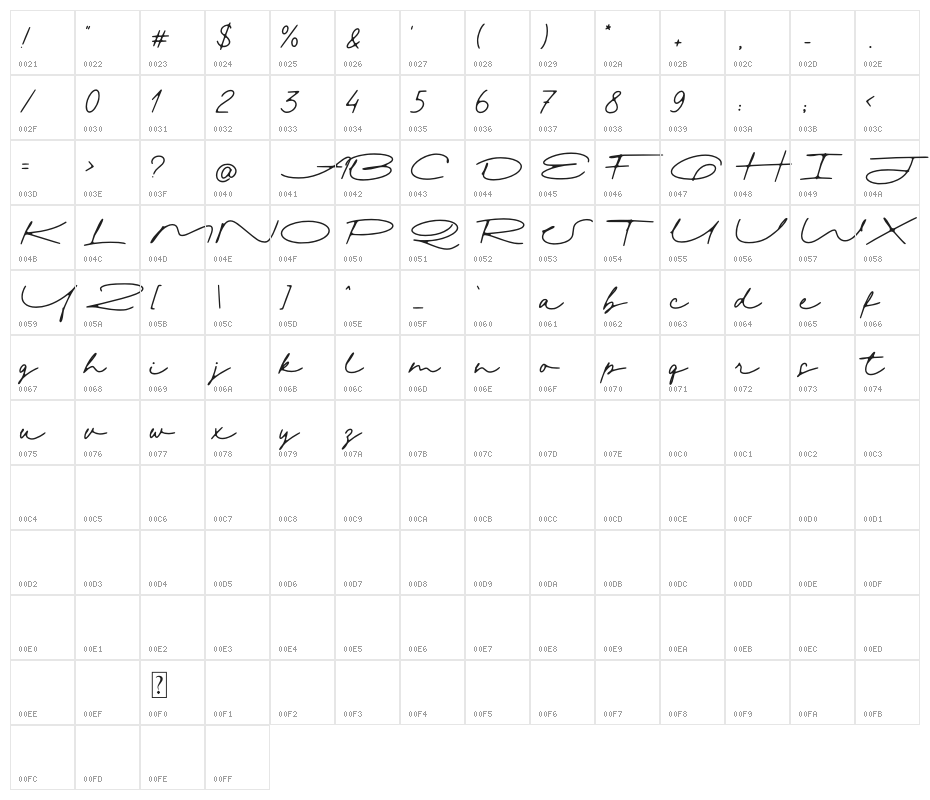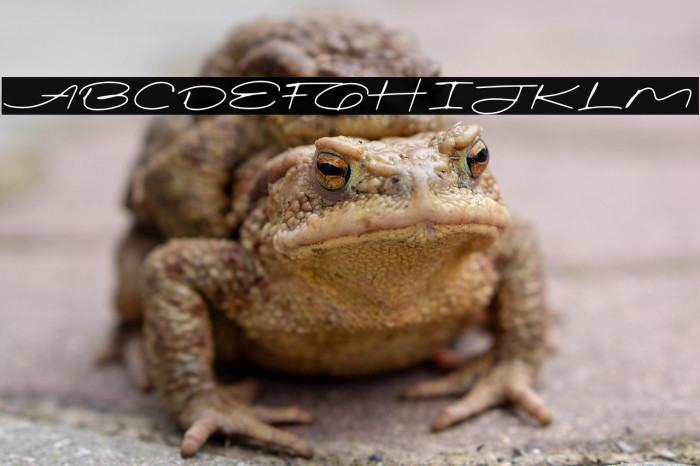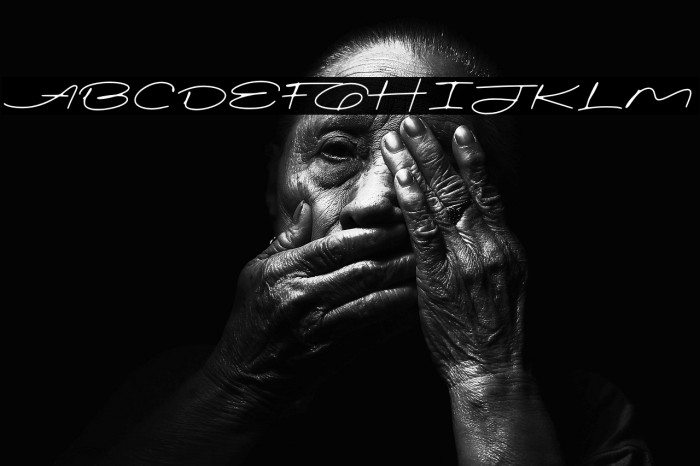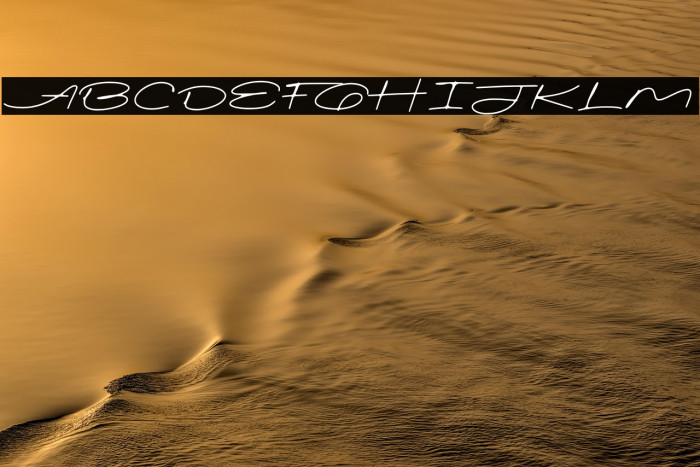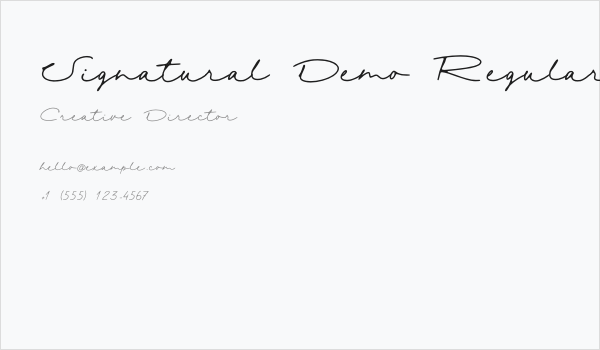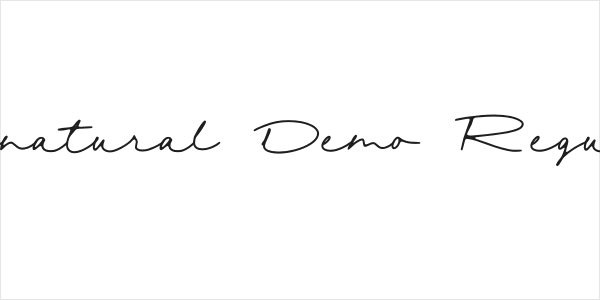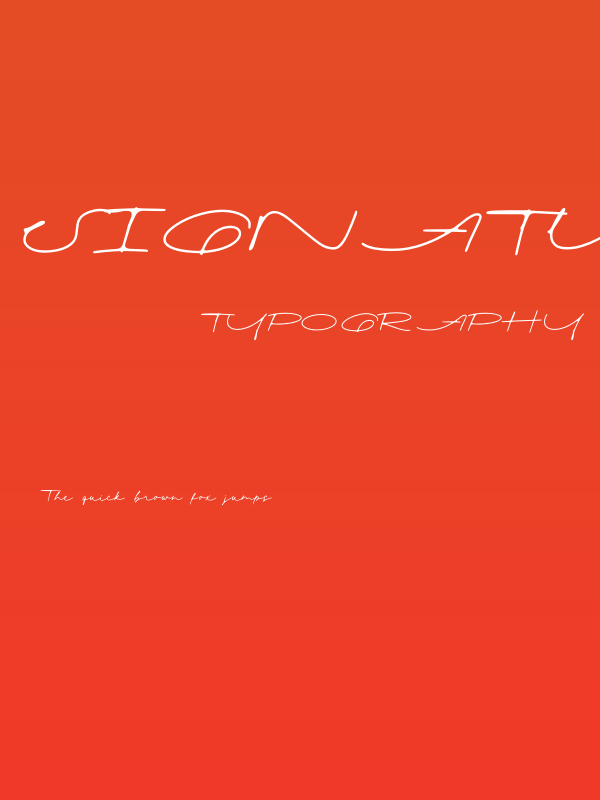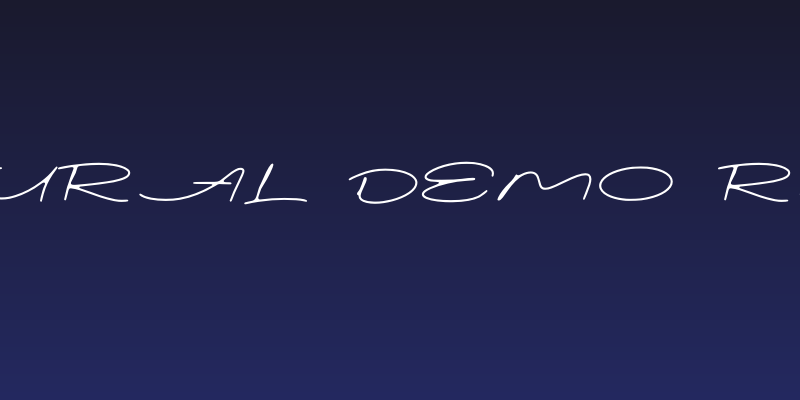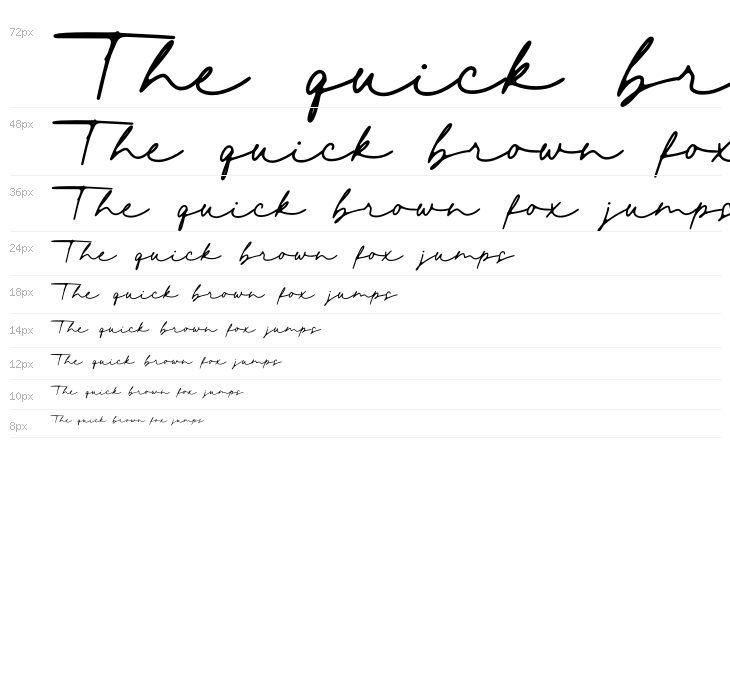
Signatural Demo Regular Font
Signatural Demo Regular Description
A flowing, cursive script font with a handwritten style, featuring smooth, connected letters and a natural, elegant appearance.
| Use Case | Logos, Signatures, Invitations |
| Proposed Projects | Invitations, personal branding, greeting cards. |